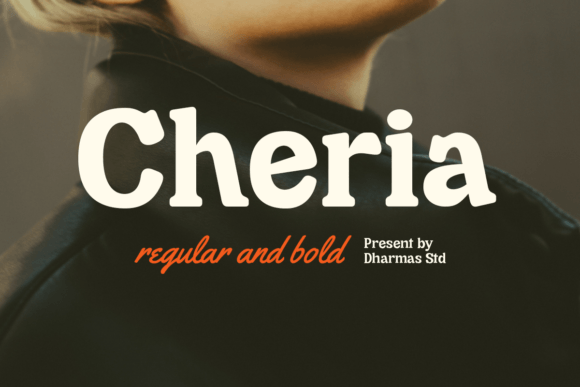
Introducing Cheria Font, the epitome of elegance and sophistication in the world of typography. Crafted by the talented artists at Dharmas Studio, this chunky serif texture font is a true masterpiece that will captivate your senses and elevate your designs to new heights.
Cheria Font is not just your ordinary typeface. It is a font designed specifically for Vogue Magazine, the pinnacle of style and glamour. With its sleek and refined curves, Cheria effortlessly embodies the essence of high fashion, adding a touch of class to any project.
Whether you're creating stunning displays or crafting compelling body text, Cheria Font has got you covered. Its versatility allows it to seamlessly adapt to any design, transforming mere words into artistic expressions that leave a lasting impact on your audience.
Step into the world of retro aesthetics with Cheria Font. Inspired by the timeless beauty of the past, this font brings a sense of nostalgia and sophistication to your designs. It's like taking a journey back in time while still embracing the contemporary.
With Cheria Font, you have the power to create designs that are both thoughtful and modern. From logos to packaging and editorial pieces, this font is your ultimate weapon to make a statement. Let your creativity run wild as you explore the endless possibilities that Cheria Font offers.
But Cheria Font is more than just a pretty face. It's a font that evokes emotions, stirs up inspiration, and leaves a lasting impression on anyone who encounters it. Its humanist touch adds a sense of warmth and personality to your designs, creating a connection with your audience that goes beyond words.
Cheria Font - where timeless beauty meets contemporary design. Make a statement, leave a lasting impression, and set your creativity free. Get ready to be captivated, get ready to be inspired. Download Cheria Font today and let your imagination soar.